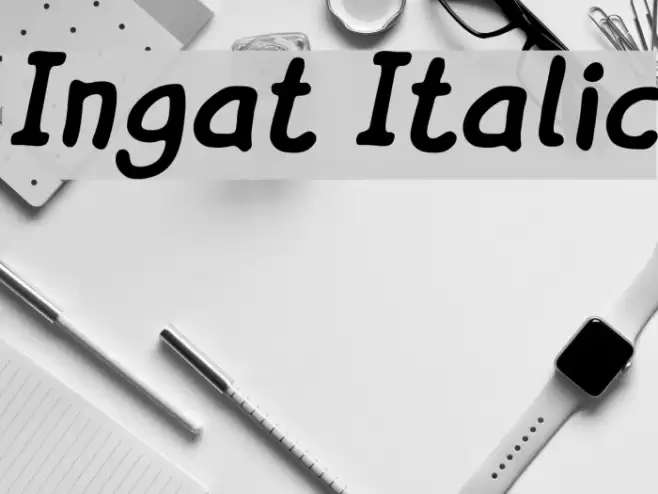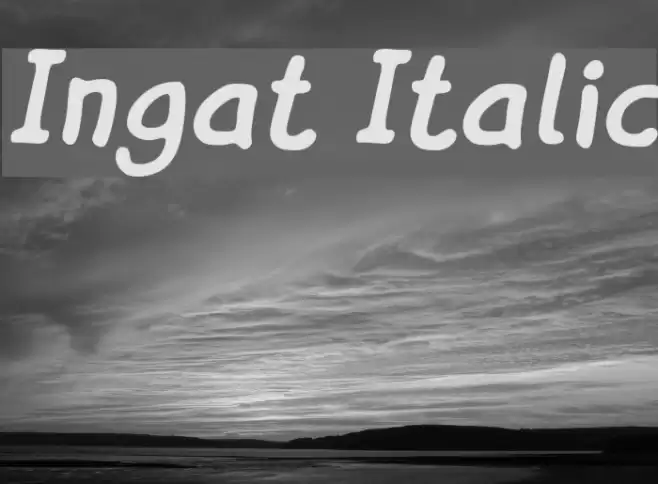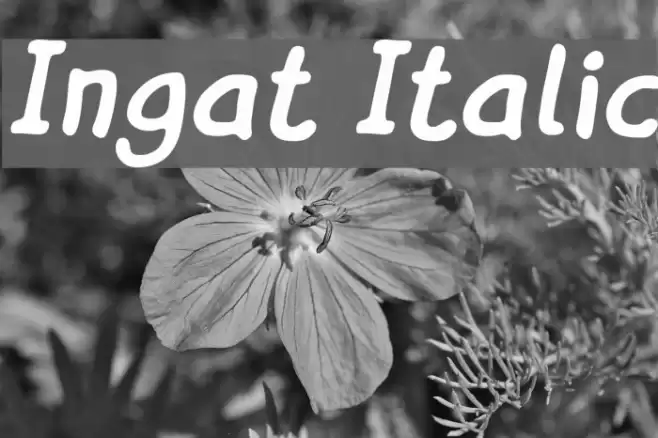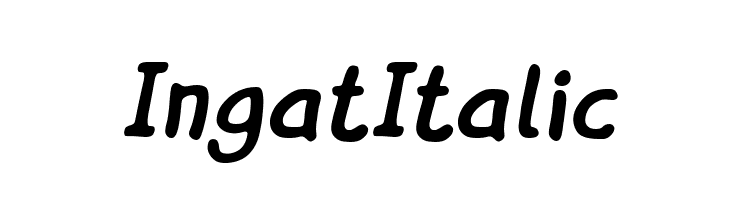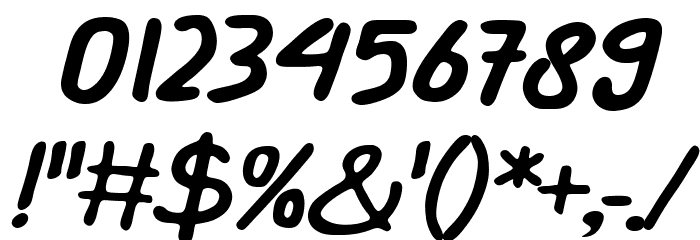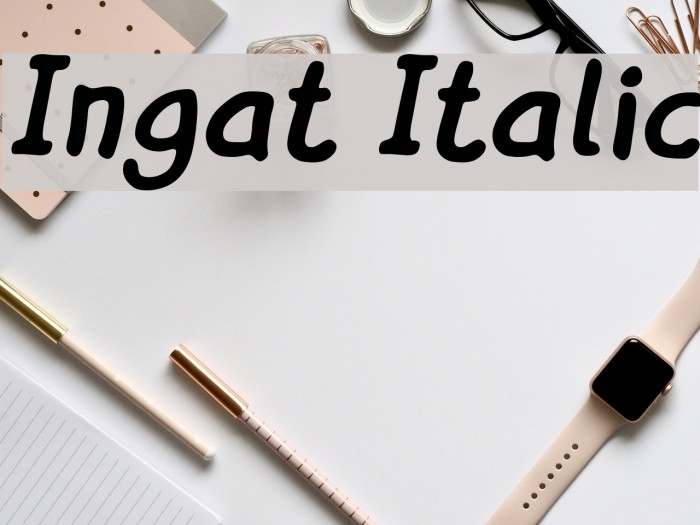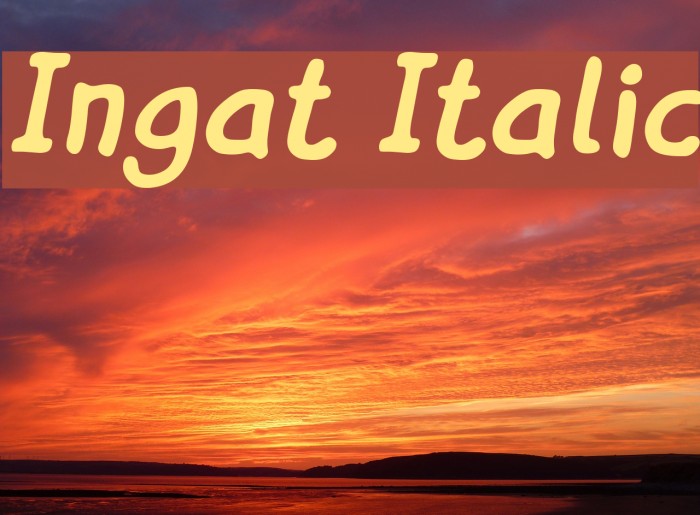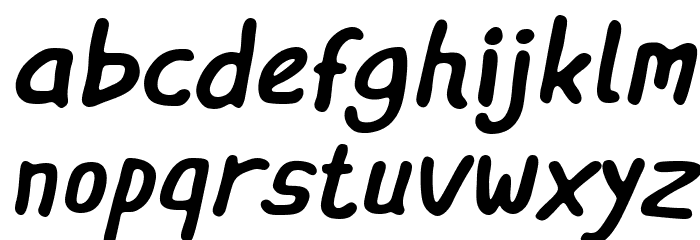
Ingat Italic
This font features a playful and dynamic style with a handwritten appearance. The characters are slightly slanted, giving it an italicized look that adds a sense of motion and energy. The strokes are smooth and rounded, contributing to a friendly and approachable feel. The uppercase and lowercase letters maintain a consistent style, while the numerals and special characters are easily readable and well-integrated. This font's informal and lively nature makes it suitable for creative and casual applications.
A playful, handwritten-style italic font with smooth, rounded strokes.
- Proposed Projects: Ideal for greeting cards, children's books, playful branding, and casual invitations.
- Overall Style: Casual
- Use Case: Headlines, Logos, Invitations